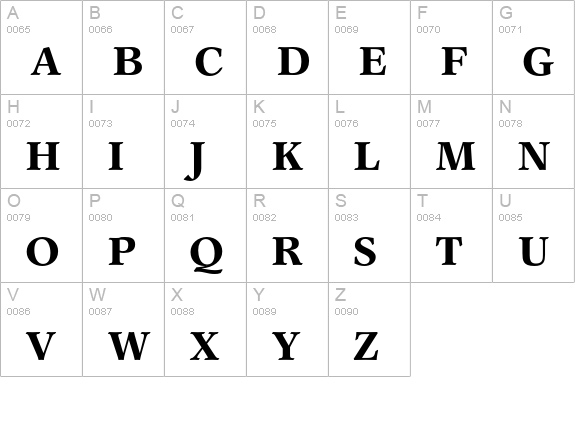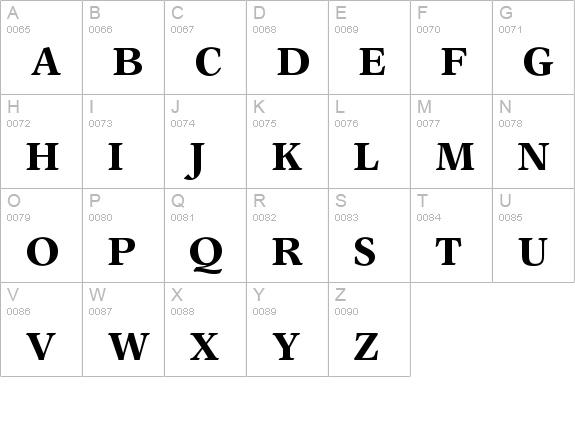
Garth Graphic Extra Bold Font Details
Garth Graphic Extra Bold is a strong, high-contrast variant in the Garth typeface family \xE2\x80\x94 well suited to headlines, attention-grabbing titles, and strong calls-to-action.
Garth Graphic Extra Bold font is a modern and striking typeface that demands attention with its bold and powerful presence. Its robust letterforms exude confidence and make a strong visual impact, perfect for headlines, posters, and any design project that requires a bold statement. The sleek lines and sharp edges of Garth Graphic Extra Bold font give it a contemporary and edgy look, while maintaining excellent readability. What sets Garth Graphic Extra Bold font apart is not only its design but also its accessibility. This premium font is available for free download at FontsMarket.com, allowing designers and creatives to easily incorporate it into their projects without any cost. Whether you're designing a logo, creating a brand identity, or crafting a standout social media graphic, Garth Graphic Extra Bold font is a versatile and eye-catching choice that will elevate your work to the next level. Download it now and unleash the power of this captivating typeface.